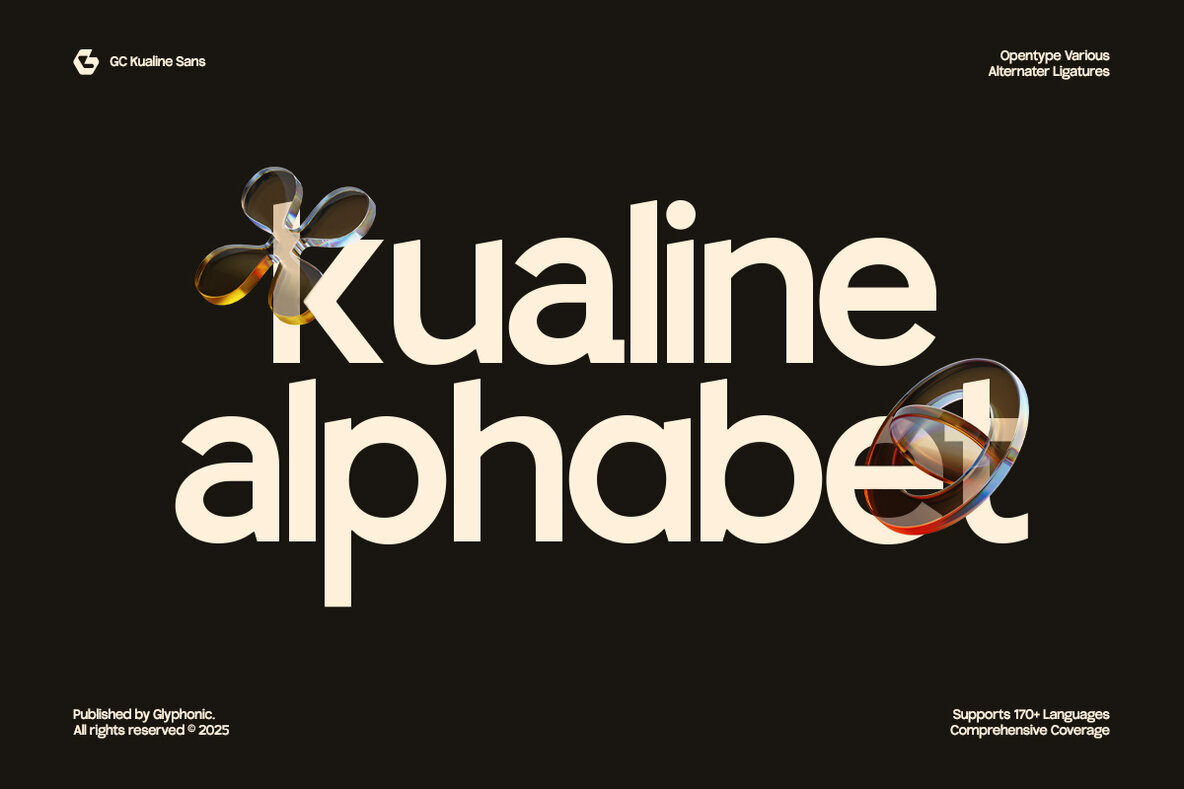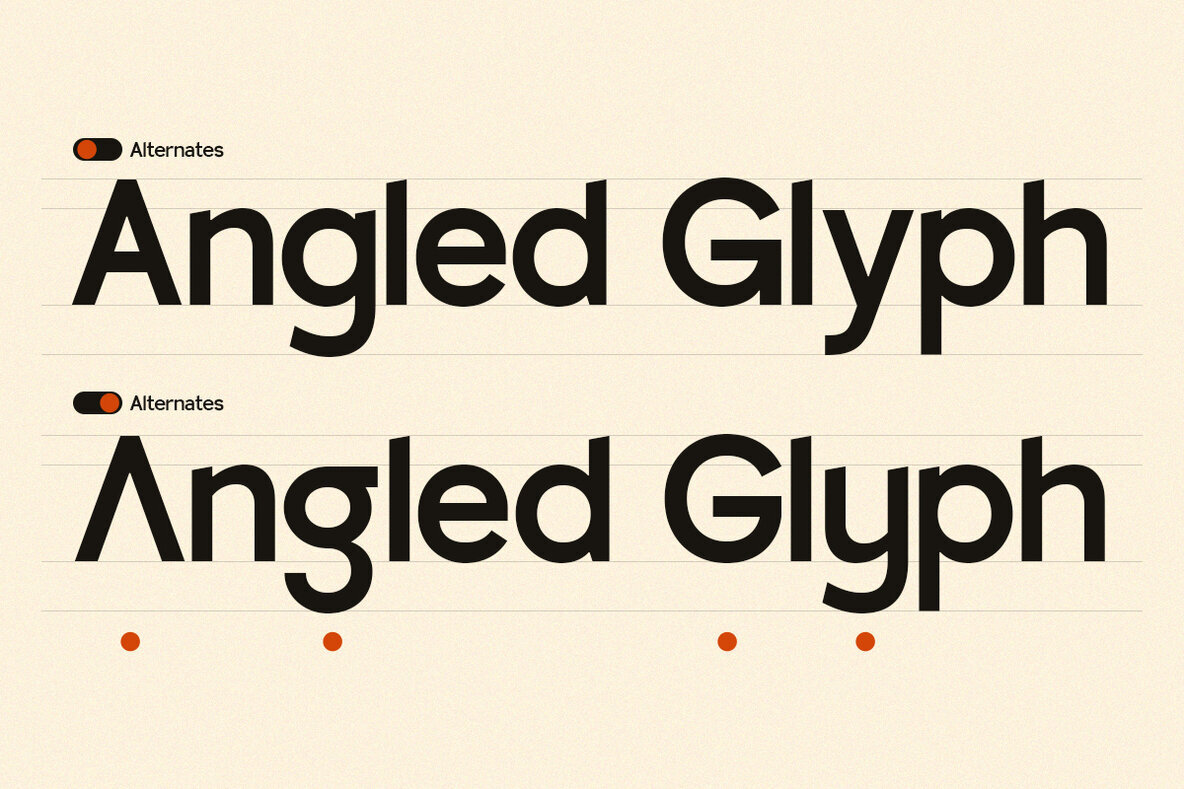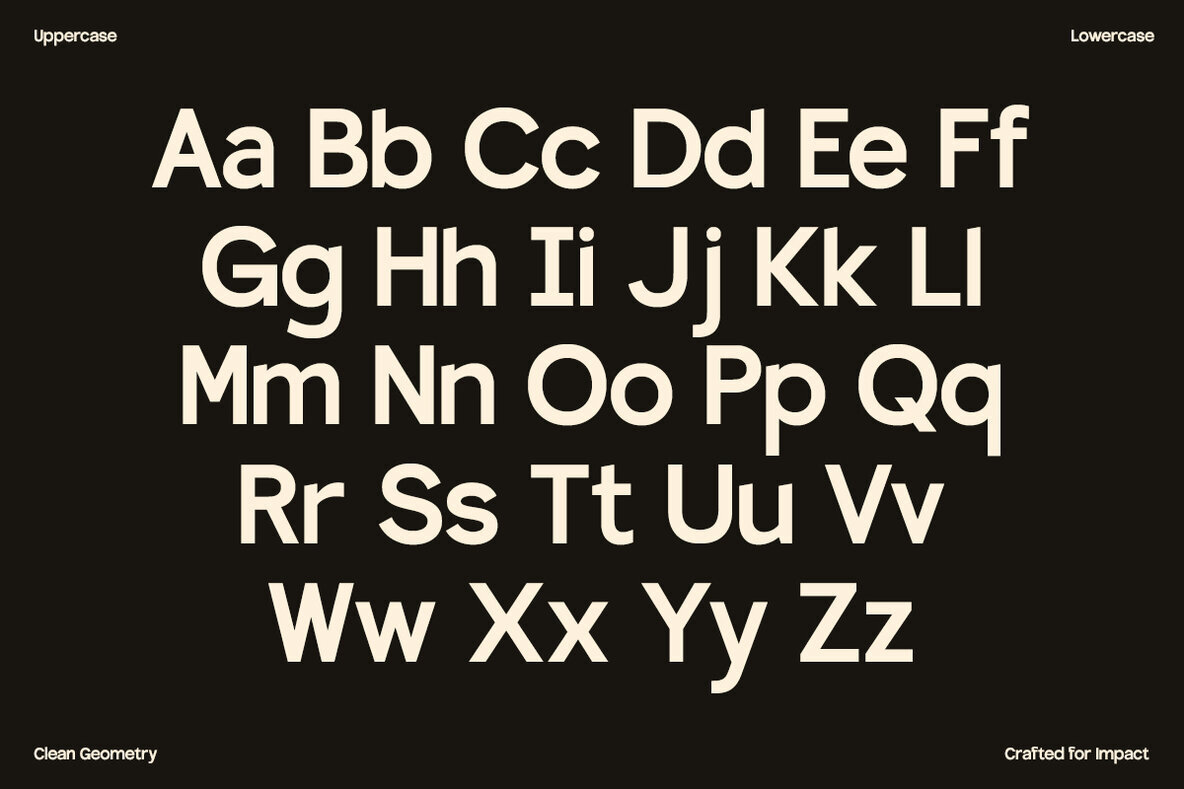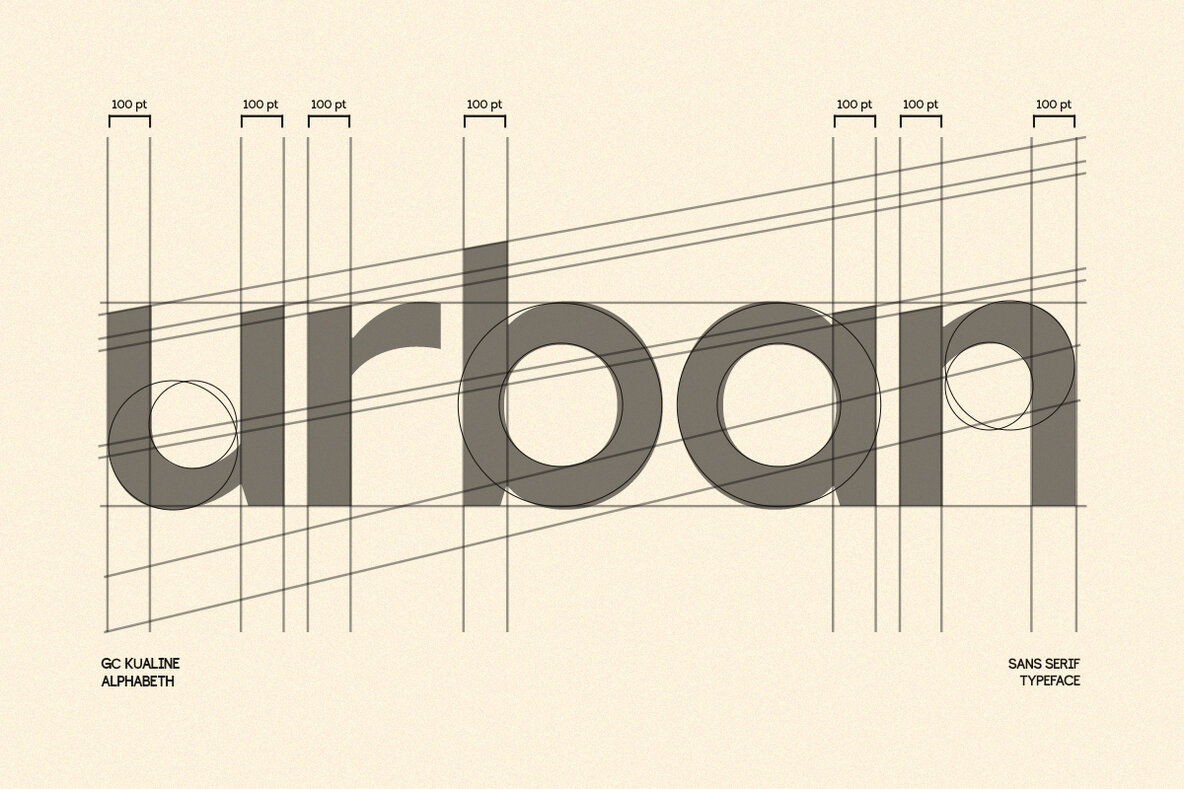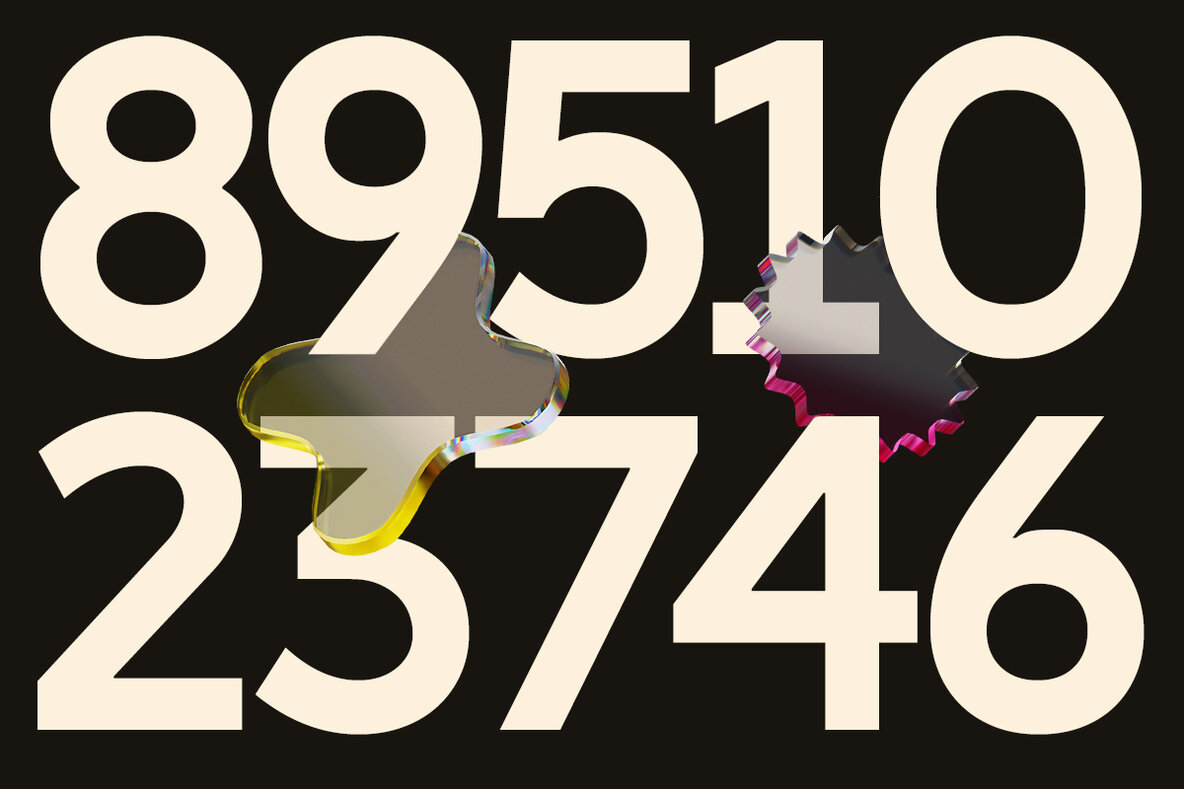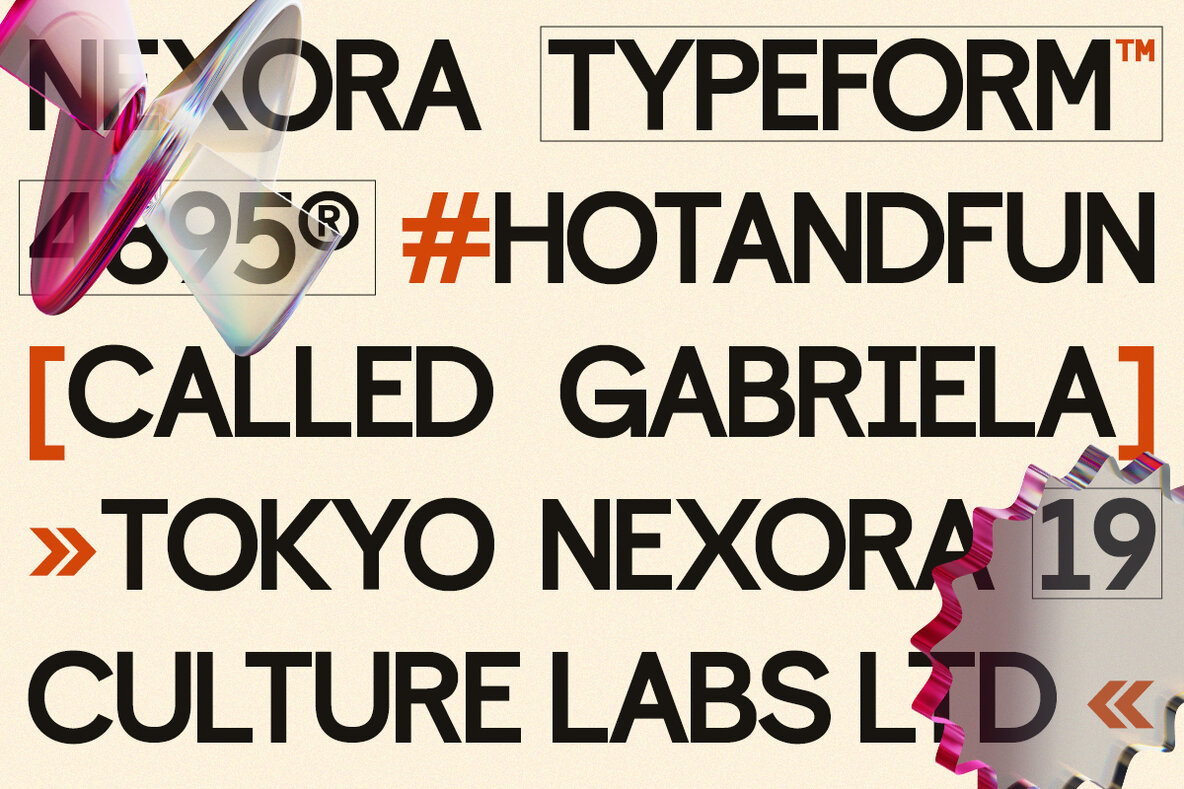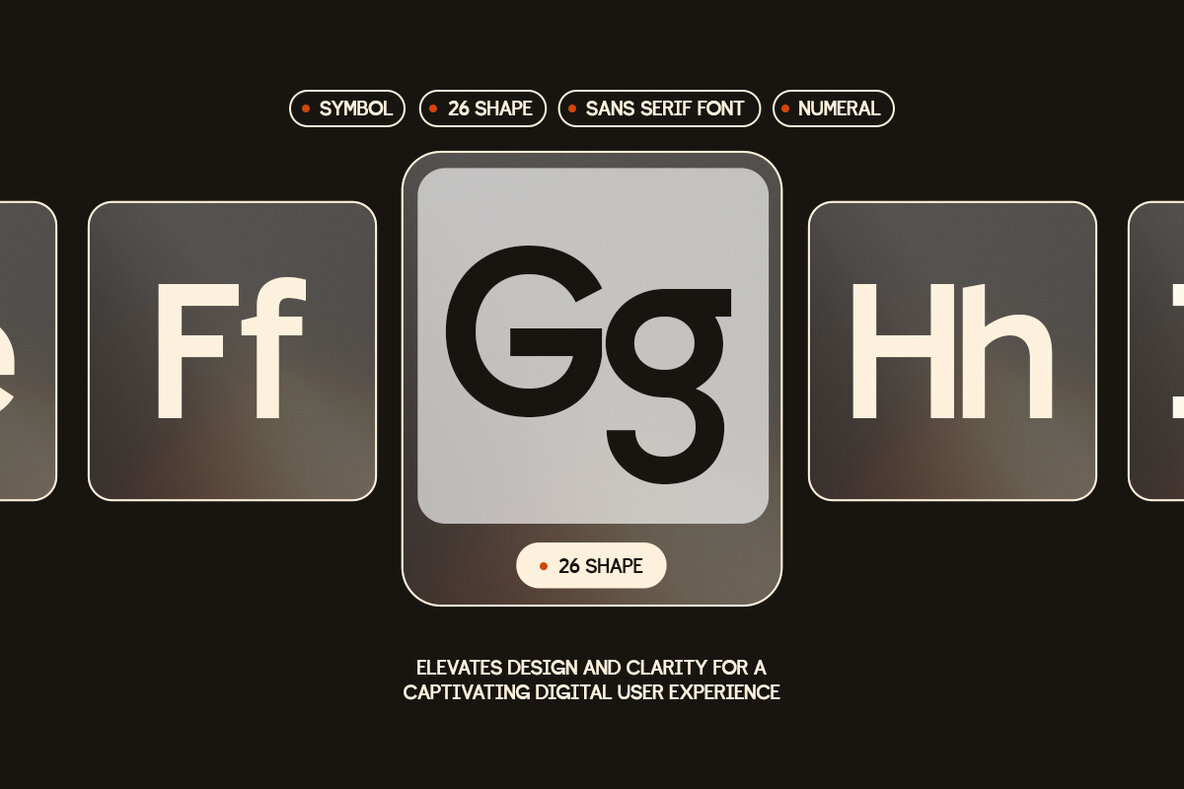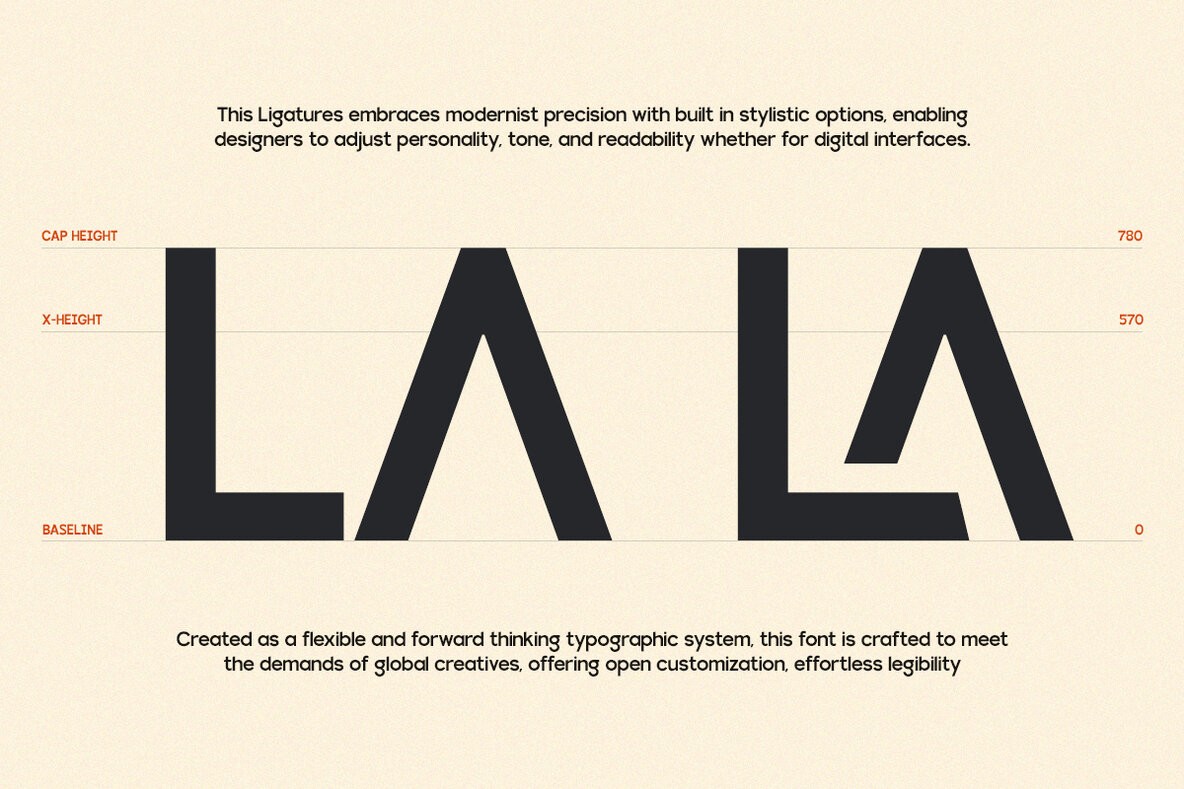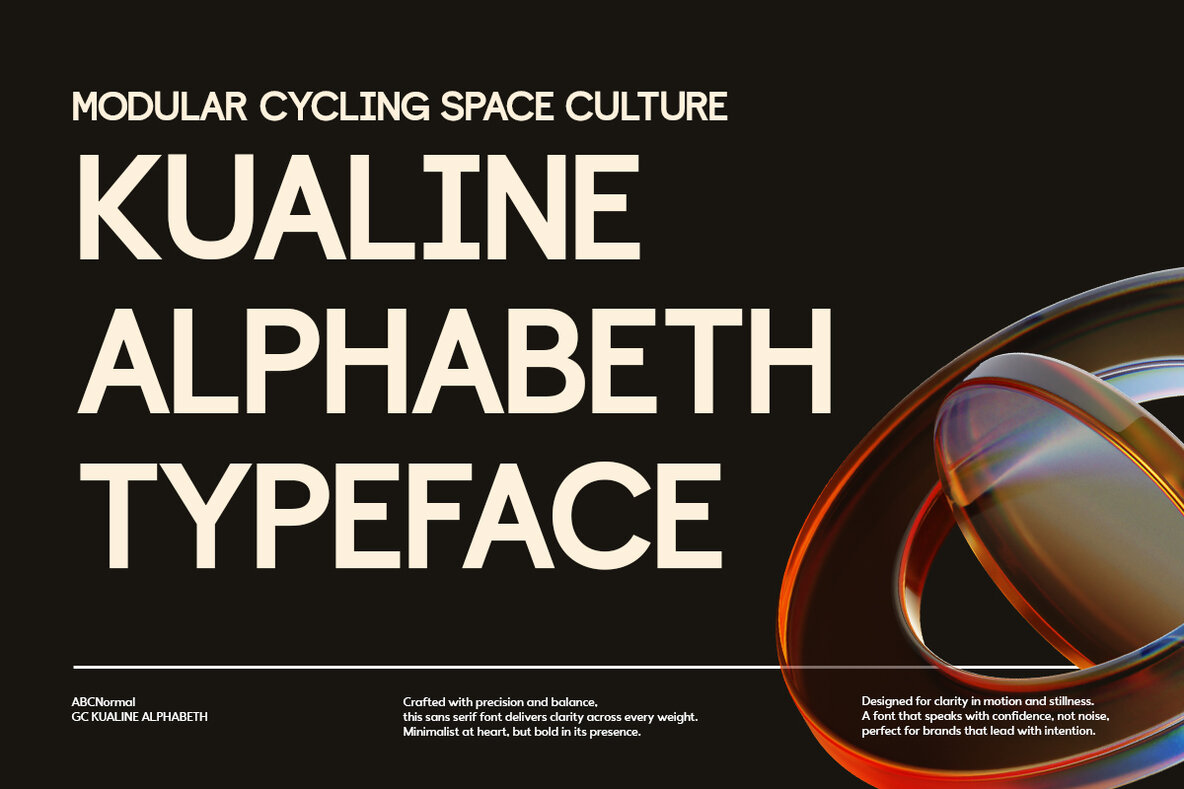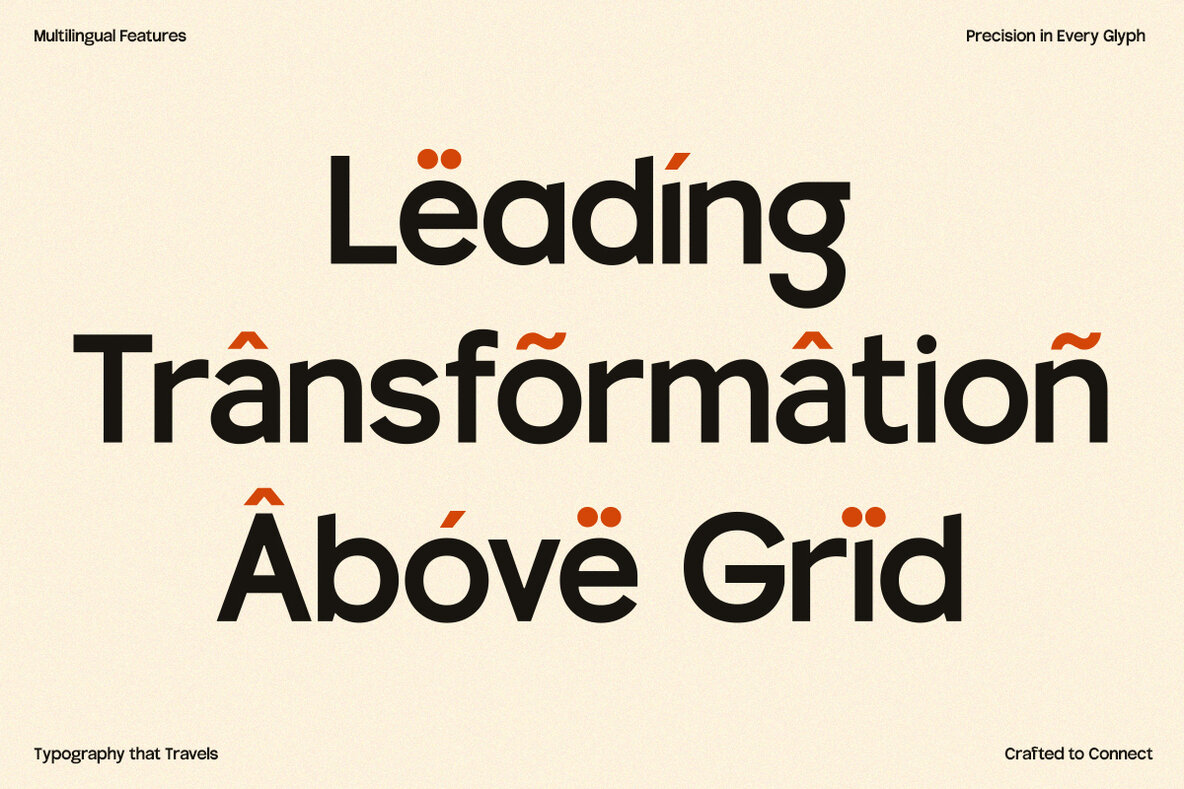
GC Kualine Font
GC Kualine Regular
GC Kualine embodies a convergence of geometric precision and contemporary elegance. Designed with a pristine and harmonious structure, this modern sans-serif is ideal for headlines, branding, logos, packaging, editorial layouts, and digital interfaces. With its smooth curves and uniform strokes, GC Kualine impart a seamless and confident aesthetic. Whether applied to high-end fashion branding, tech presentations, or lifestyle content, this typeface offers unparalleled versatility and sophistication. Features:GC Kualine: A Modern Sans-Serif With Timeless Appeal